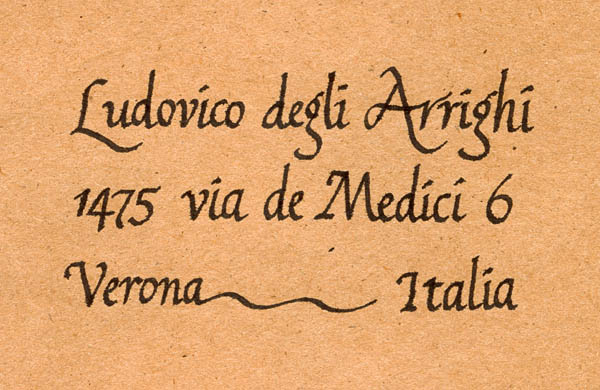
Resources on handwritten/crafted lettering?
I am in search of some insightful articles or websites on designers who employ handcrafted typography in their work (written, found, sculpted, stitched, etc. [think Steven Heller's new book]). Also helpful would be resources related to the history or philosophy behind this kind of typography.
do you know the Letter Arts Review?
An interesting news item on this subject came across the wires today...
Interesting how they describe the writing style created for the project a 'font'.
My calligraphy teacher -a veteran of 25 years- said something quite ironic during the first class: that the highest compliment one's calligraphy can receive is if people think it's a font. Is that hilarious or what.
Did he mean that in terms of like characters being exactly the same?
I guess it's a multi-faceted thing to say and consider. He was referring to the importance of consistency. But I see a problem with that on two levels:
-Structural: I don't know any calligrapher who thinks that all letters should be structured the same. My teacher himself adds swashes, variant forms and whatnot. And quite ironically, with OpenType especially fonts are increasingly adopting variant forms...
-Finish: This could make more sense, but I actually don't think it does either. If I want consistency, I will use a font. In this age, assuming you think calligraphy is useful (and I for one think it is), the point should be celebrating the fauve, inconsistent aspect. On the other hand I don't think one should intentionally go crazy with inconsistency. So for myself I've sort of arrived at this compromise: to try to make my letters consistent, but withouth using guides of any kind; and to not obsess about extender length for example; etc. I'm still working on getting comfortable with this though.
Having been a calligraphy instructor for over 25 years myself (amoung several other lettering arts pursuits). Consistency is the key to calligraphy. There are different kinds of consistency. Their are the classic forms of calligraphy, then there are the more modern forms of expressive calligraphy. Which type of consistency one strives for depends on what form of calligraphy you are creating.
Most people erroneously refer to calligraphic and lettering work as "fonts" for the simple reason that it is the only term they are familiar with. The average individual knows nothing about the "arcane art" of letterforms, their use, history or creation. Even the majority of professional art directors who should know better.
Clotilde Olyff:
Here's what I meant:
Not very good, but not imitative of another marking system either.
"Not very good
I wasn't criticizing the author's use of the word font - just seemed interesting that she thought her readers would understand it better than 'lettering style'. Surprised her editor didn
...the highest compliment one's calligraphy can receive is if people think it's a font
I would take that to refer to finish, i.e. to the measure of control and cleanness in the forms, rather than to their structural consistency. Of course, this presupposes calligraphy in which control and cleanness are desired goals, as they generally are for beginners: one should master the controlled before trying to master freedom, which is much more difficult.
Don, I actually wasn't trying to be inventive there - for a change! :-) That's my literal rendering of the hand we learned in class (called "Italic" by the instructor), with some minor variations (like the "7", which I made less frail) - but also that "alternate" binocular "g". Even that swash "A" was one of the forms prescribed in class. (The one "structural" thing I regret btw is not giving the "M" a swash on its bottom-right.)
> what inspired you to pursue calligraphy, and what do you hope to gain from it?
Well, unless you've been lurking here for a while, you might not know that I'm actually firmly opposed to chirographic* type; although I do think it can look beautiful** sometimes, I also think it is regressive all of the time. I equate it with celebrating the past at the expense of building the future; but I guess everybody needs to party sometimes.
Holly Dickens seems to be someone that has mastered out of control. Or in other words, she seems to be totally in control. http://www.hollydickens.com/
There is also Michael Clark. He is a crazy man. A lot of fun to seem him work. http://www.ideabook.com/typeasar.htm
John Stevens http://www.johnstevensdesign.com/
A list like this could spiral out of control very quickly.